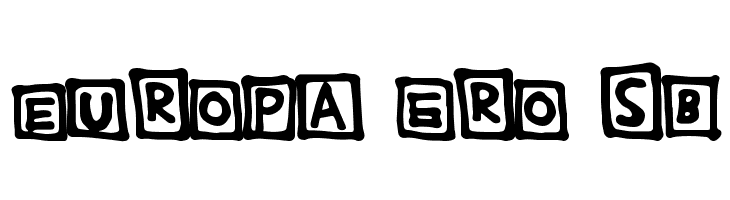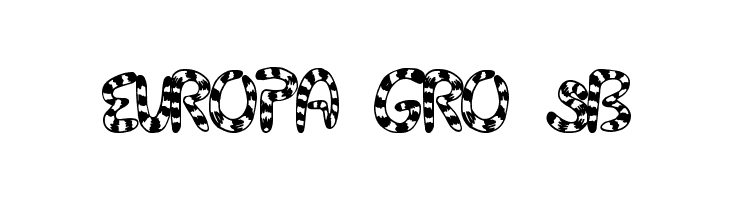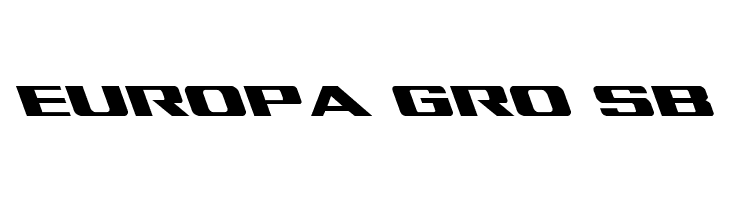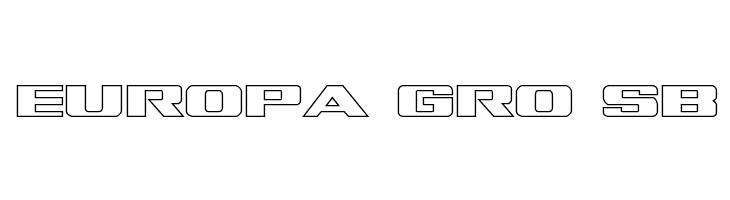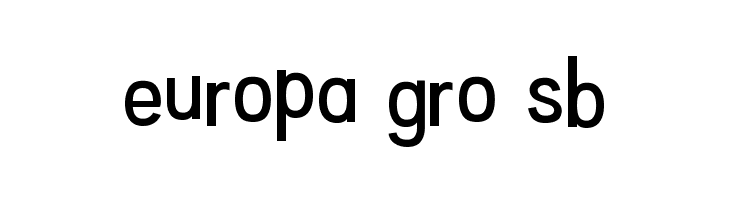
A bold, 3D italic font with a futuristic and dynamic style.
A bold, 3D geometric font with an outlined, futuristic style.
A bold, angular font with a modern, geometric style.
A bold, italicized font with a dynamic and modern style.
A bold, condensed font with a geometric and modern style.
A bold, italic, and condensed font with a dynamic and modern style.
A bold, expanded font with a modern and futuristic style.
A bold, expanded italic font with a sleek, modern design.
A bold, extra-condensed font with geometric, modern design.
A bold, extra-condensed italic font with a dynamic and modern style.
A bold, futuristic font with a distinctive horizontal striped pattern.
A modern, italic font with a striped gradient effect, exuding energy and motion.
A bold, modern font with a unique horizontal striped pattern.
A bold, geometric font with a halftone pattern for a modern, edgy look.
A bold, italicized font with a halftone effect, perfect for dynamic designs.
A bold, italicized font with a dynamic and angular design.
A bold, futuristic font with sharp, angular lines and a geometric design.
A dynamic, italic font with sharp, angular edges and a futuristic style.
A bold, futuristic font with angular edges and a geometric structure.
A bold, left-slanted font with a futuristic and dynamic style.
A bold, geometric outline font with a modern and futuristic style.
A bold, italicized outline font with a dynamic and modern style.
A bold, geometric outline font with a modern and futuristic style.
A bold, geometric font with outlined, block-like letters for a modern, industrial look.
A bold, italicized font with a sporty, three-dimensional look.
A bold, outlined font with a dynamic, three-dimensional effect.
A bold, geometric font with strong, angular lines and a modern style.
A bold, semi-italic font with a dynamic and modern style.
A bold, playful font with a tiger-striped pattern, perfect for whimsical designs.
A bold, rounded, and playful font with a chunky appearance.
A playful, hand-drawn font with quirky, irregular letterforms.
A pixelated, retro-style font with a blocky, geometric design.
A playful, bold font with characters enclosed in hand-drawn boxes.
A jagged, hand-drawn font with a raw and dynamic style.